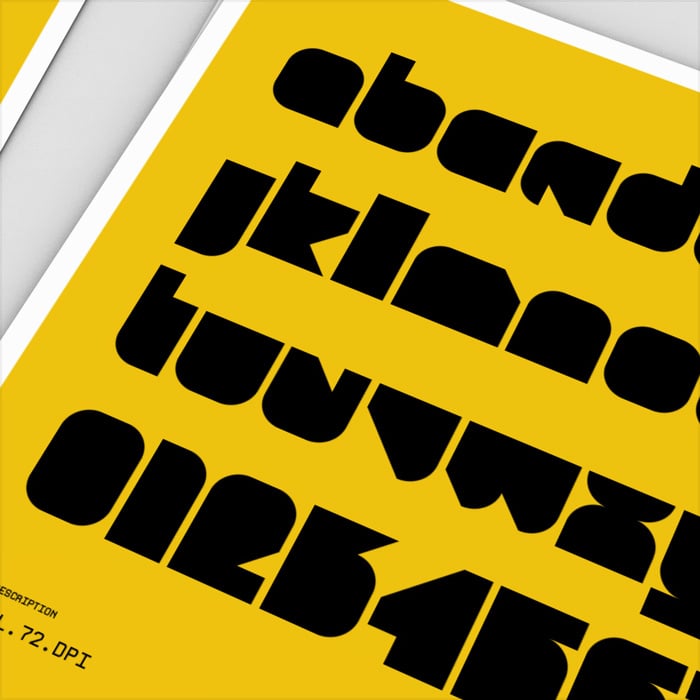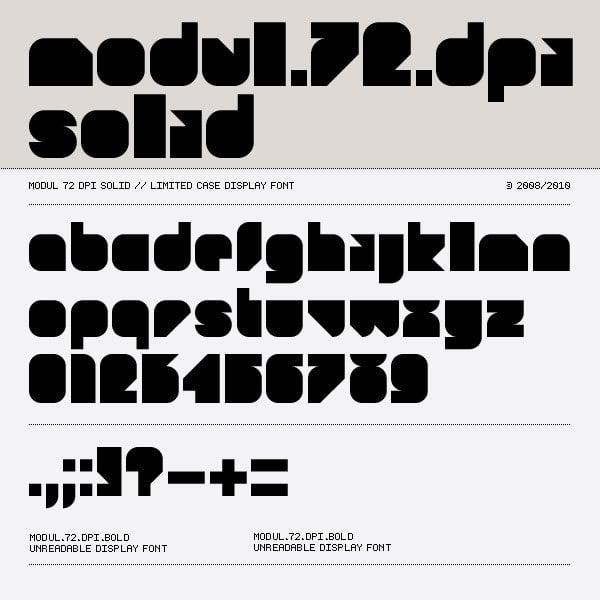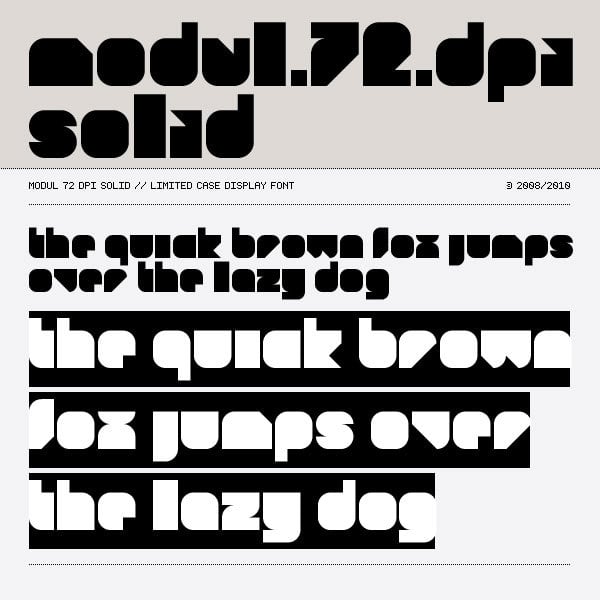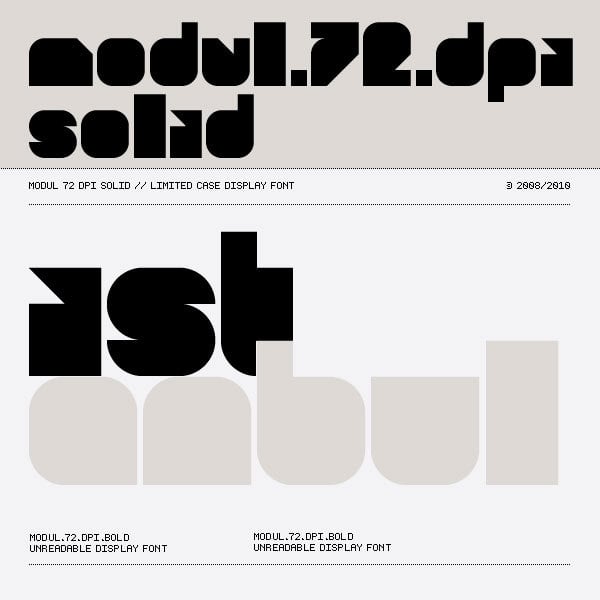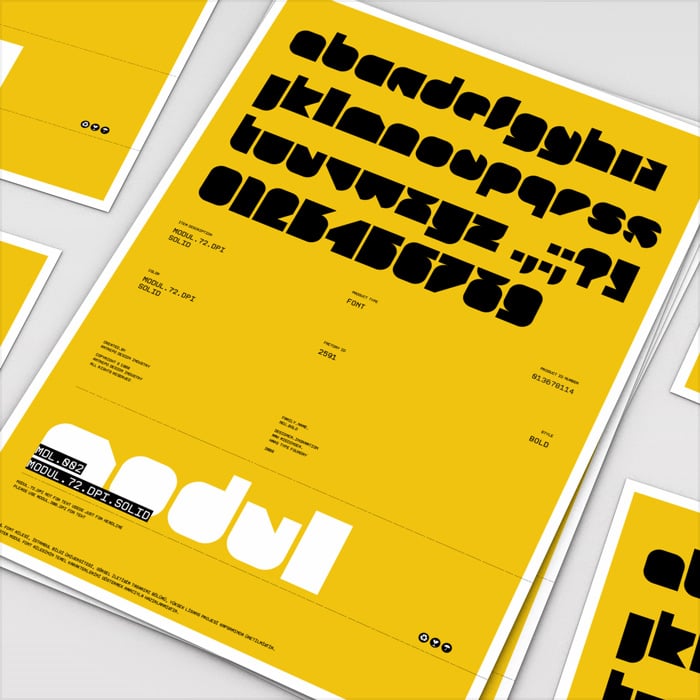
Modul 72 dpi Solid font
Modul 72 dpi Solid
Modul 72 dpi solid was created for graduate thesis. This thesis presents font designs which are capable of covering what is demanded by the "digital age" and discusses the issues that need to be considered regarding the applications within this new age.